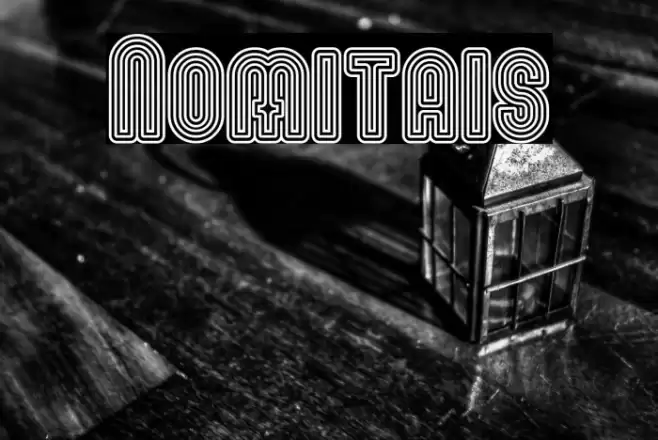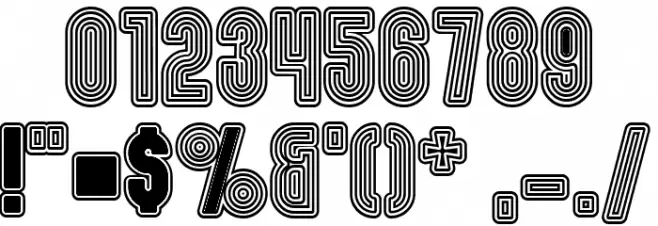
Nomitais Font
Nomitais Description
This font features a bold, decorative style with a unique triple-line outline that gives it a striking, dimensional appearance. The uppercase and lowercase letters maintain a consistent width, creating a cohesive look across the alphabet. The numerals and special characters follow the same design, ensuring uniformity throughout. The font's geometric shapes and clean lines make it highly legible, while the outlined style adds a layer of visual interest, making it ideal for attention-grabbing designs.
A bold, decorative font with a triple-line outline for a dimensional effect from Uncategorized fonts.
- Proposed Projects: Ideal for posters, logos, headlines, and any design requiring a bold, eye-catching typeface.